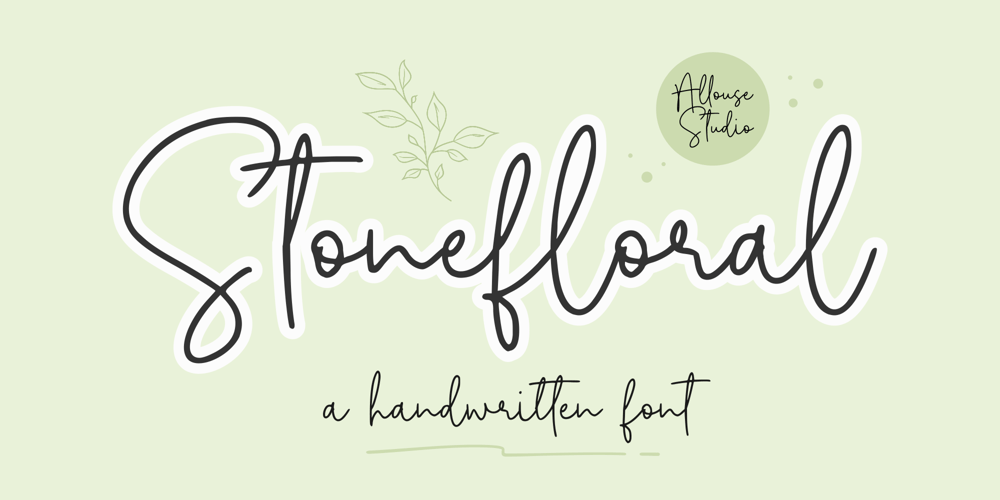
Stonefloral Font Family was designed by Fachrizal Yusuf and published by Allouse Studio. Stonefloral contains 1 styles and family package options. Proudly Presenting, Stonefloral A Handwritten Font.Stonefloral is perfect for any titles, logo, product packaging, branding project, megazine, social media, wedding, or just used to express words above the background.Stonefloral also come with Multi-Lingual Support.Enjoy the font, feel free to comment or feedback, send me PM or email. Thank You!